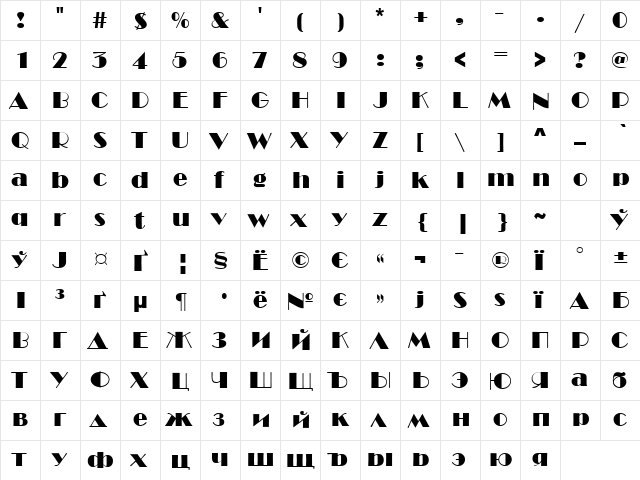
HighWayC Normal Font Preview
HighWayC Normal
HighWayC Normal Font Details
Design Context for HighWayC Typeface
HighWayC is a composed and adaptable typeface that performs quietly and consistently across a wide range of design contexts.